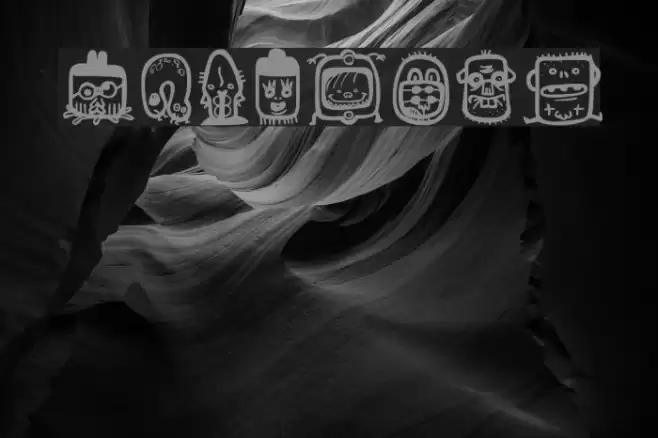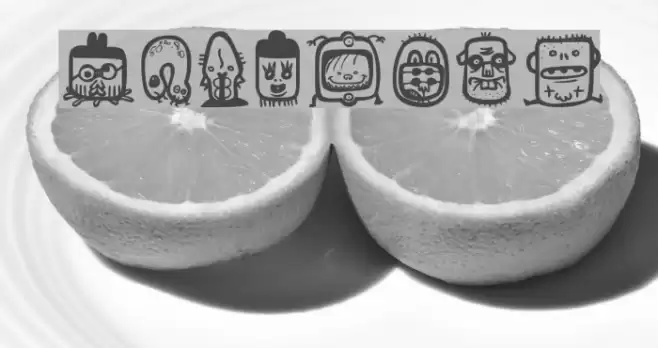
aliendco2 Font
This is a highly decorative and playful font featuring a series of unique, cartoon-like characters. Each letter is represented by a distinct, whimsical creature, giving the font a lively and imaginative appearance. The characters are bold and detailed, with intricate line work and expressive faces, making them stand out. This font is perfect for projects that require a fun and creative touch, as it brings a sense of humor and personality to any design. The style is reminiscent of doodles or illustrations, with a hand-drawn feel that adds to its charm.
A playful, cartoon-like decorative font with unique character designs from Dingbats fonts.
- Proposed Projects: Ideal for children's books, comic strips, playful branding, or any project needing a whimsical touch.